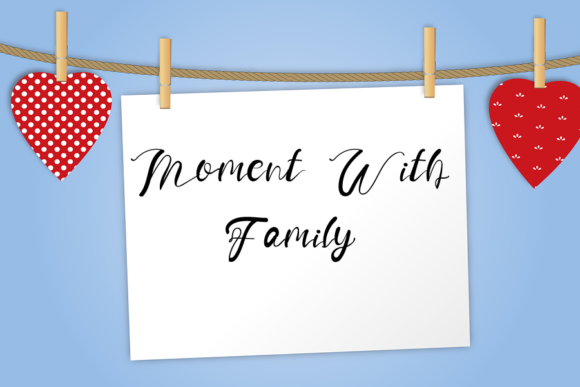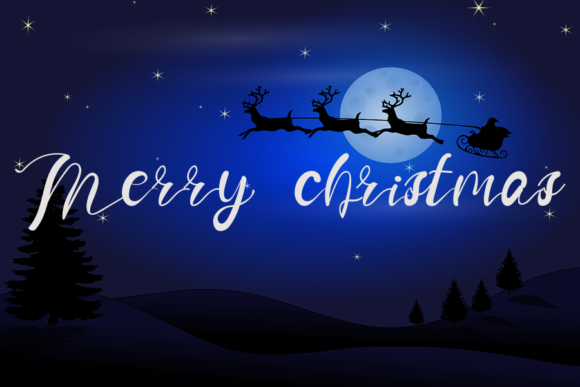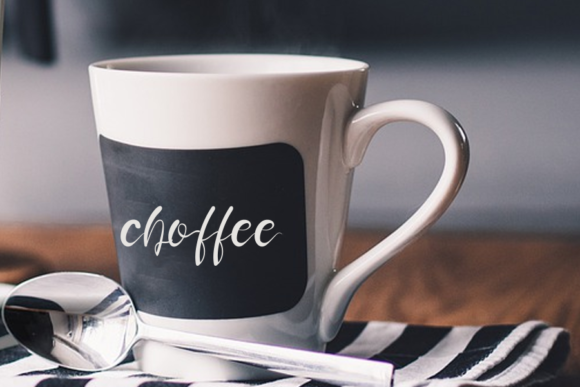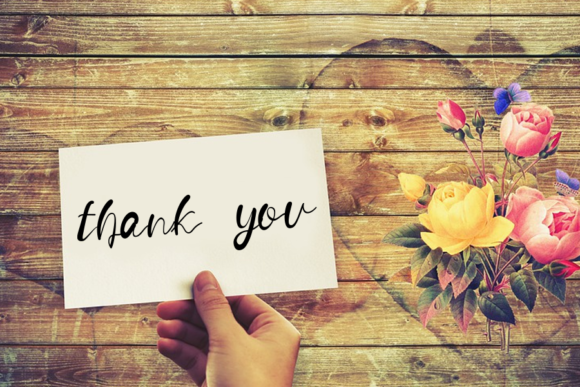
Affection Font
About Affection Font
Affection is a chic, modern and simple lettered handwritten font. Suitable to a wide variety of designs, this font has the potential to become your favorite go-to font, no matter the occasion!